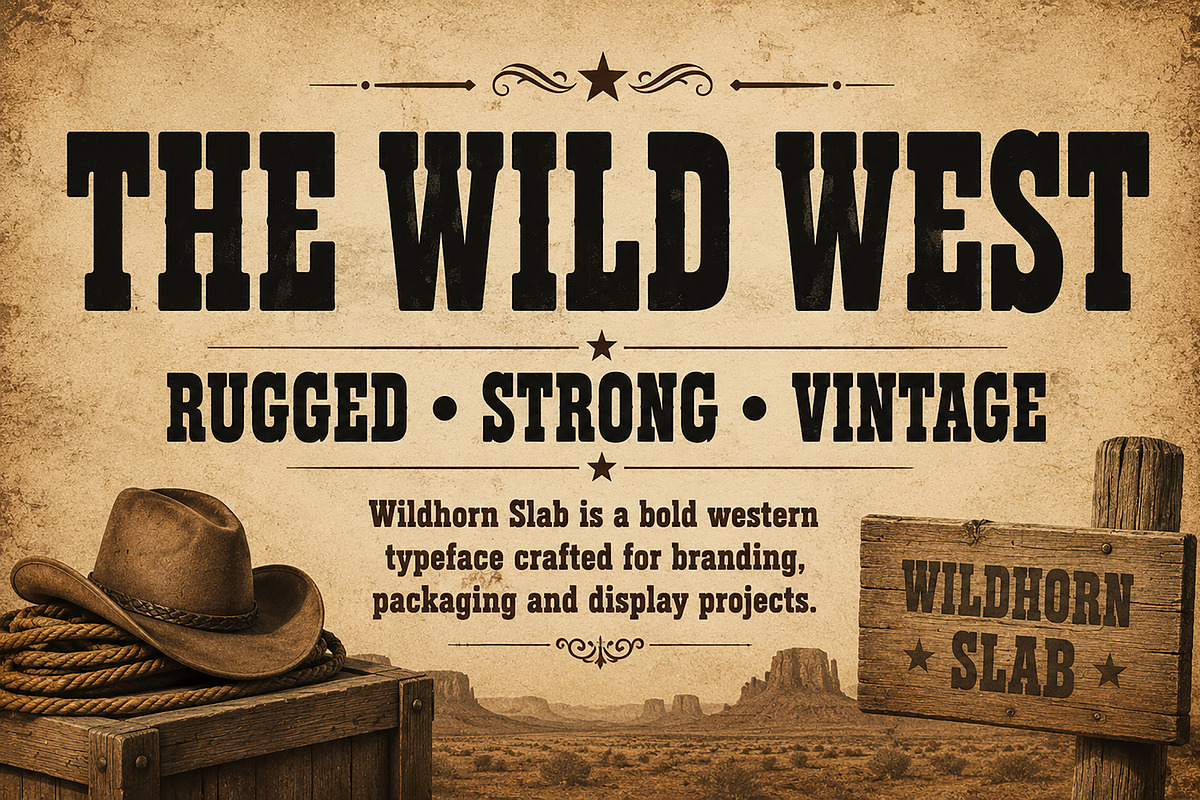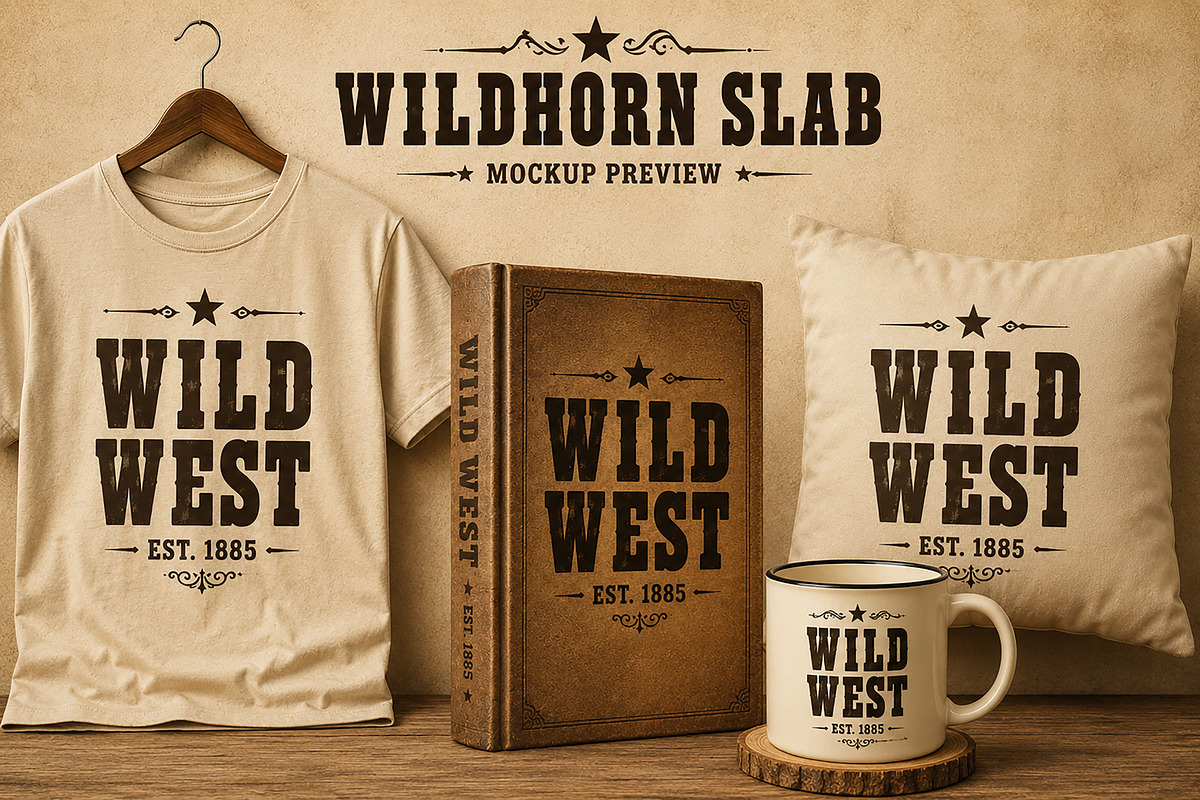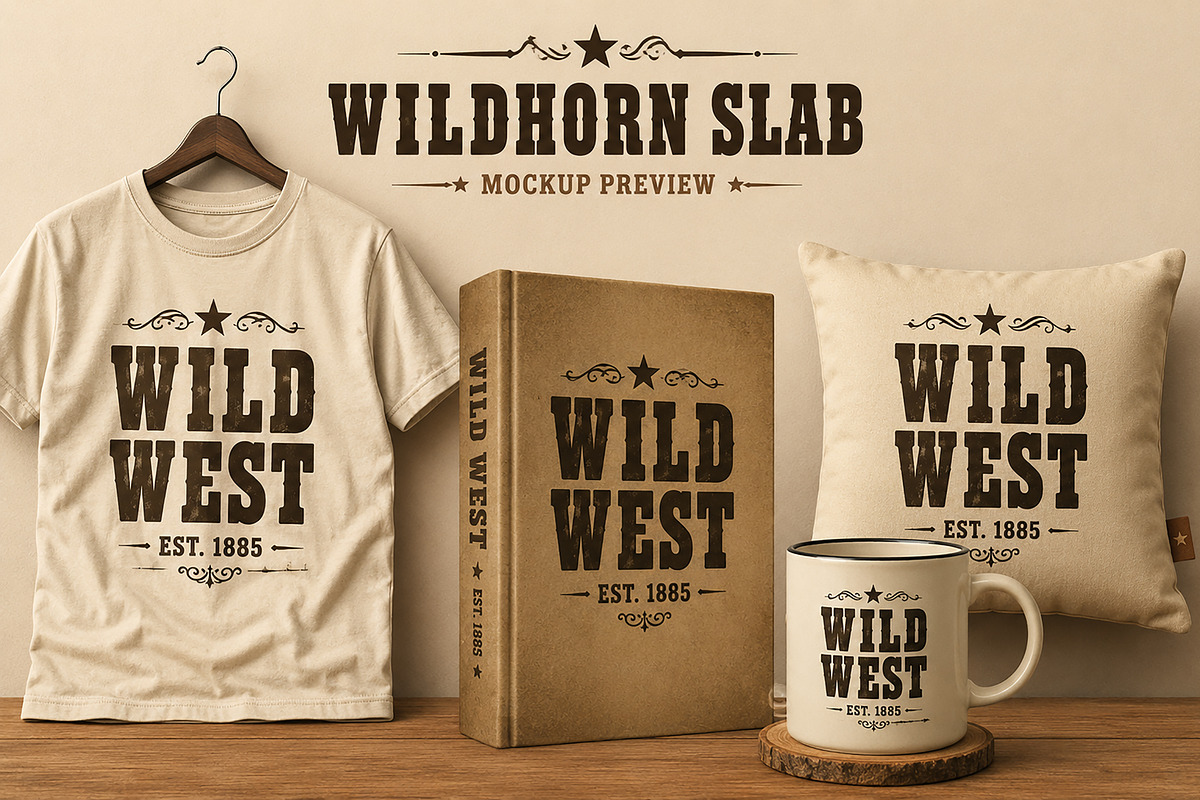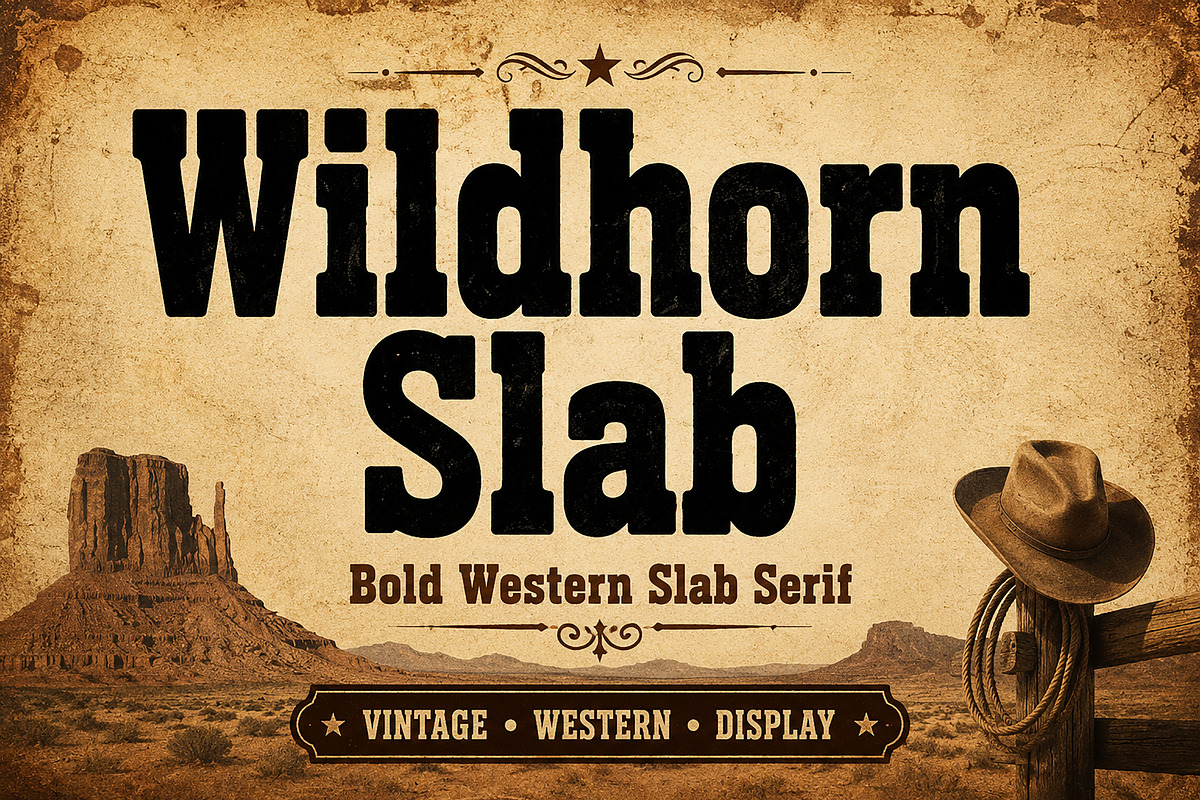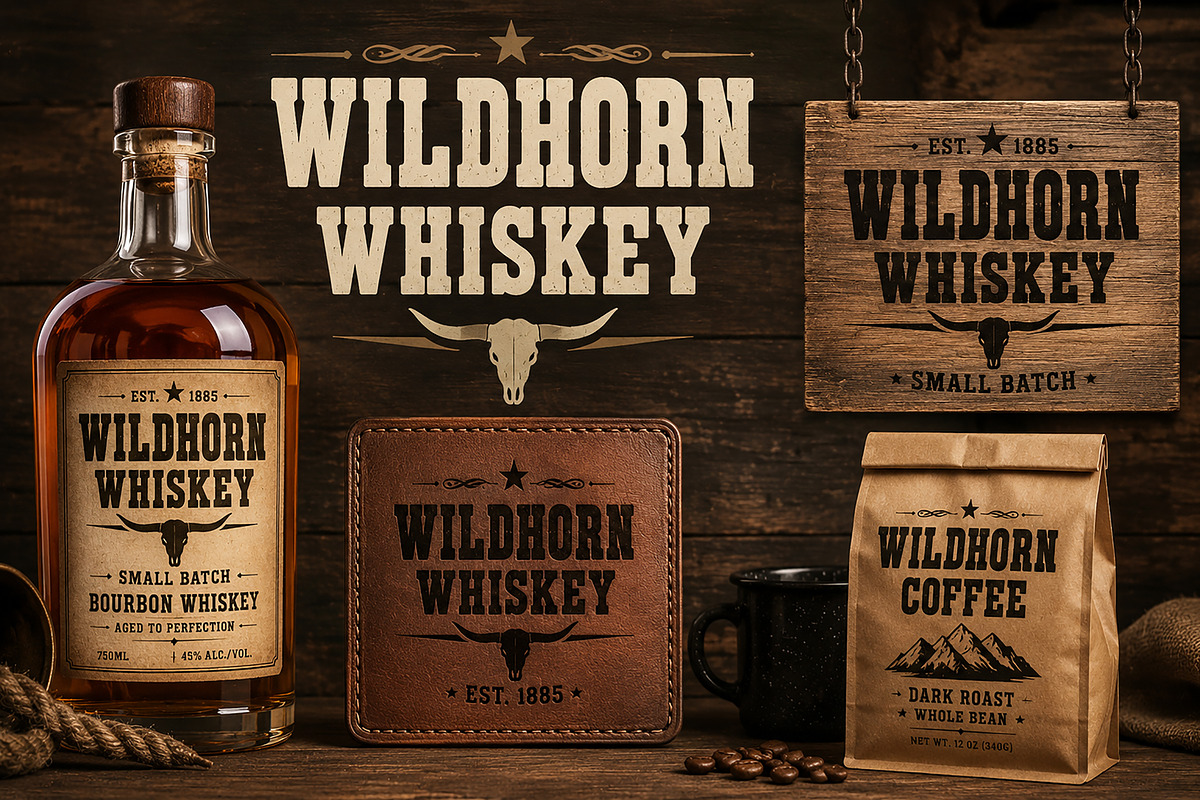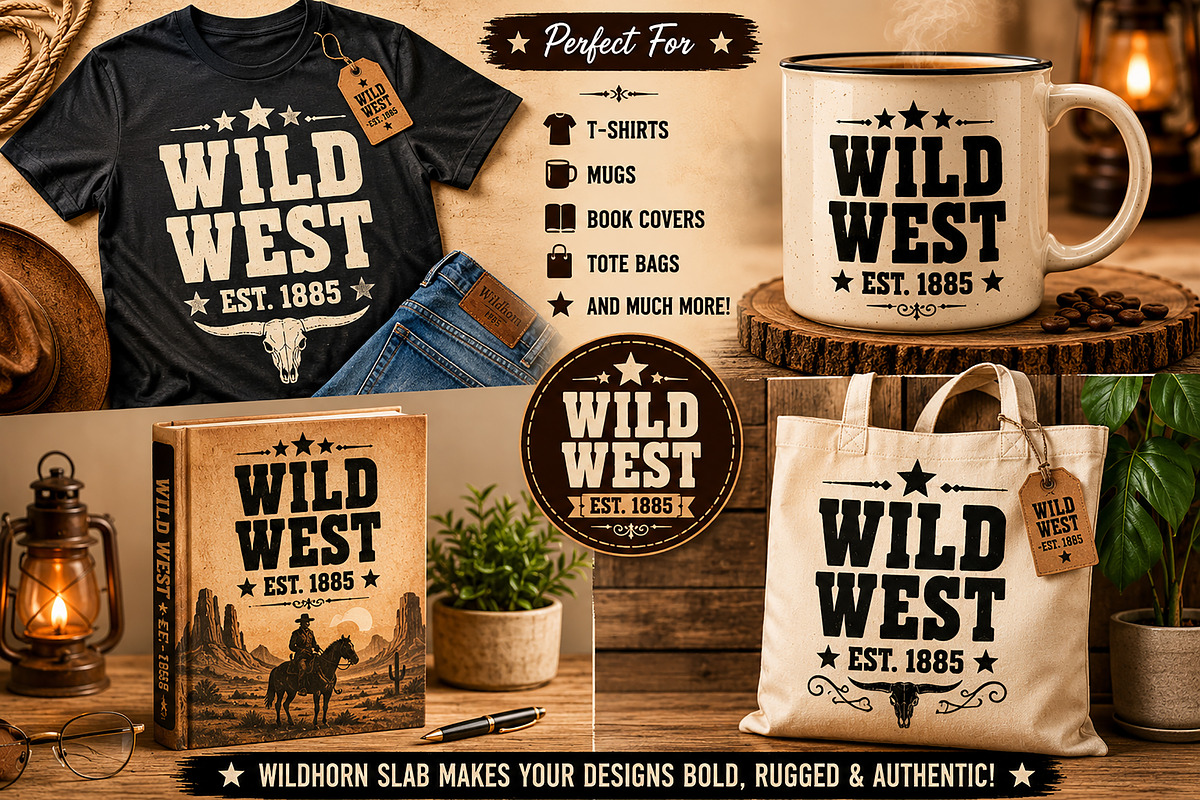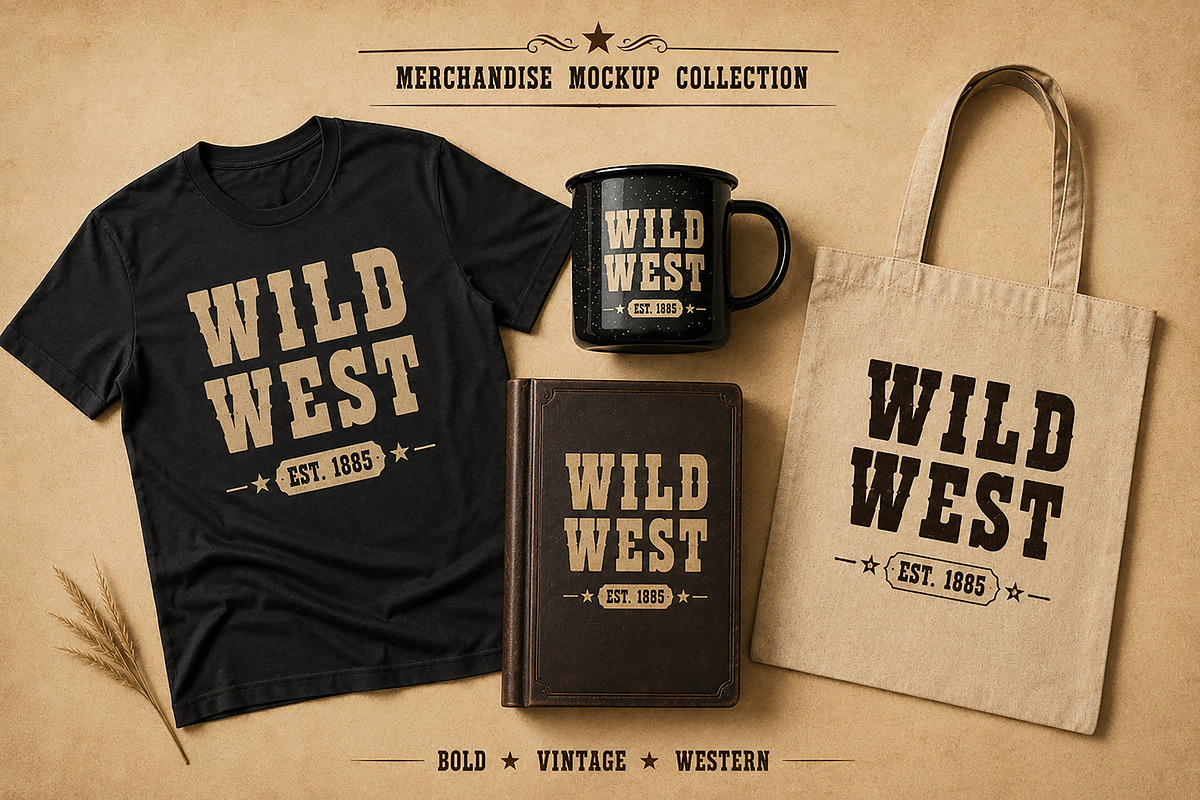
Wildhorn Slab
Wildhorn Slab is a bold and rugged slab serif typeface inspired by the spirit of the American frontier, vintage western signage, and classic woodtype printing. Designed with strong letterforms, sturdy slab serifs, and a commanding presence, this font is perfect for projects that demand authenticity, strength, and timeless character.
Whether you're creating western-themed branding, whiskey labels, coffee packaging, apparel graphics, posters, book covers, signage, or rustic logo designs, Wildhorn Slab delivers a powerful vintage aesthetic while maintaining excellent readability.
Its bold construction and distinctive western personality make it an ideal choice for designers seeking a font that captures the essence of the Old West with a modern professional finish.
Western & Cowboy Branding
Vintage Logos
Whiskey & Beer Labels
Coffee Packaging
T-Shirt Designs
Posters & Headlines
Merchandise Design
Rustic Signage
Outdoor & Adventure Brands
Farm & Ranch Branding
Retro Advertising
Bring the bold spirit of the frontier to your next creative project with Wildhorn Slab.